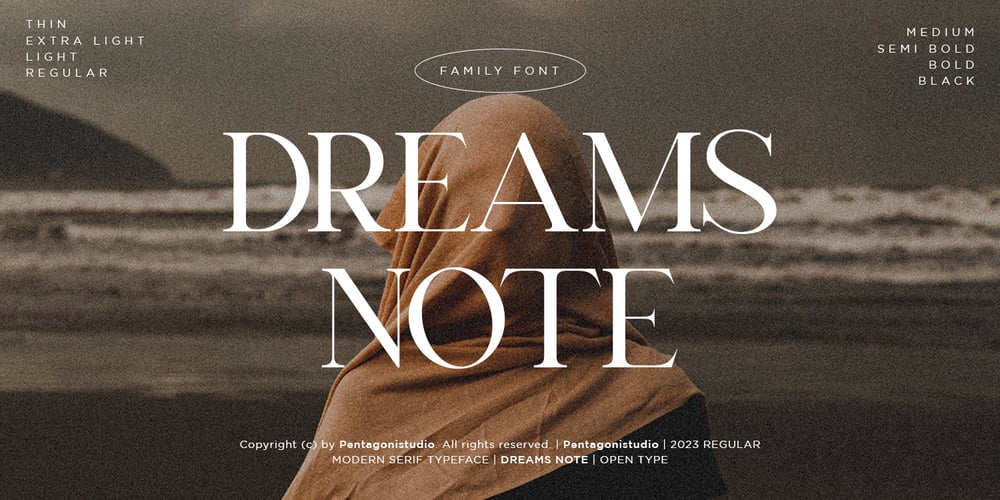
Dreams Note PS Font Family was designed by Burhan Adiatma and published by pentagonistudio. Dreams Note PS contains 9 styles and family package options. Dreams Note Is A Modern Family Font Serif Including 8 Font Style.Font Features : Dreams Note Thin Dreams Note Extra Light Dreams Note Regular Dreams Note Medium Dreams Note Semi Bold Dreams Note Black SOFTWARE REQUIREMENTS :Fonts and alternate: No special software is required they may be used in any basic program /website app that allows standard fonts That’s it, folks! You can go ahead and get cracking :)Follow My Shop For Upcoming Updates Including Additional Glyphs And Language Support. And Please Message Me If You Want Your Language Included or If There Are Any Features or Glyph Requests, Feel Free to Send me A Message.Have a Good Day!